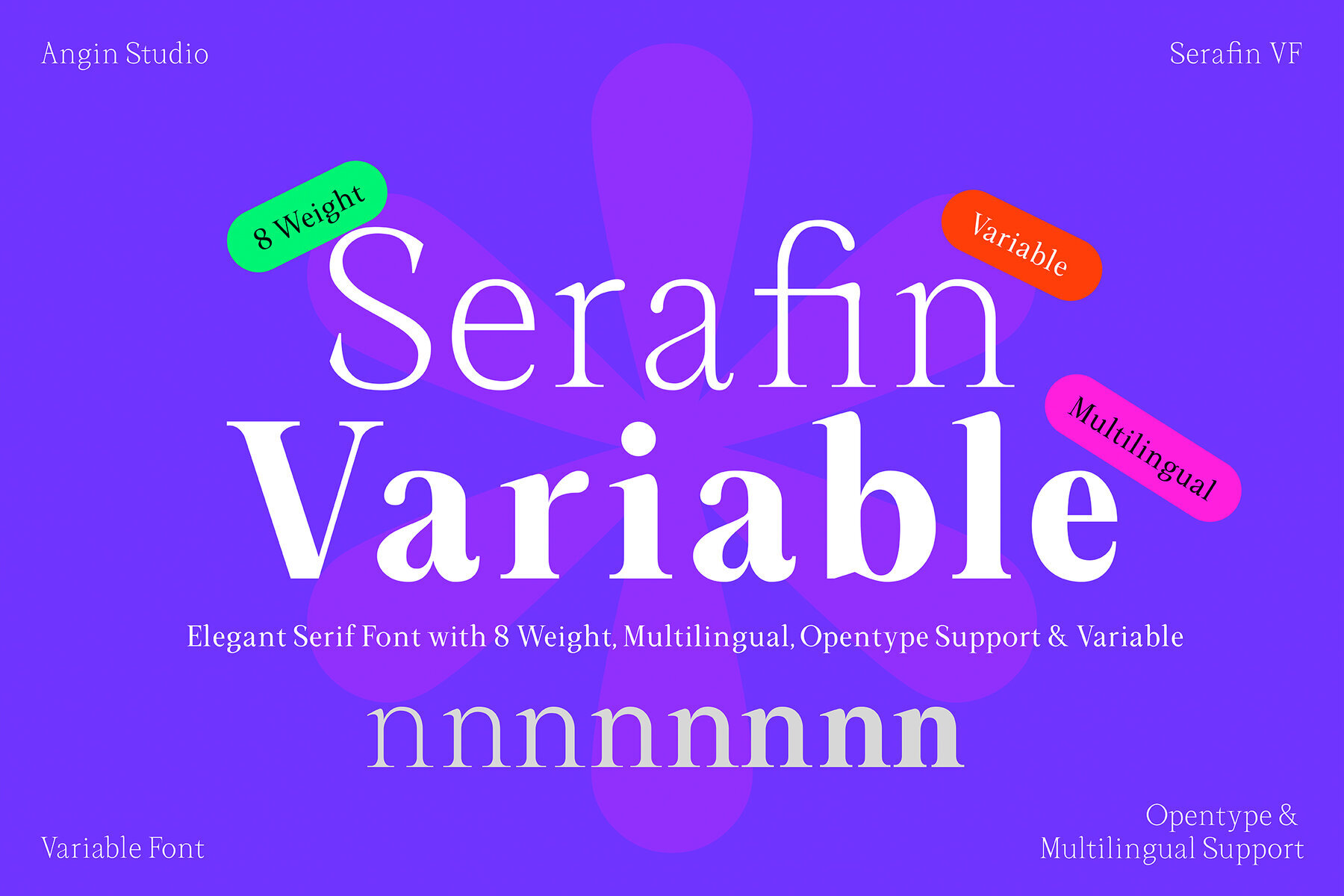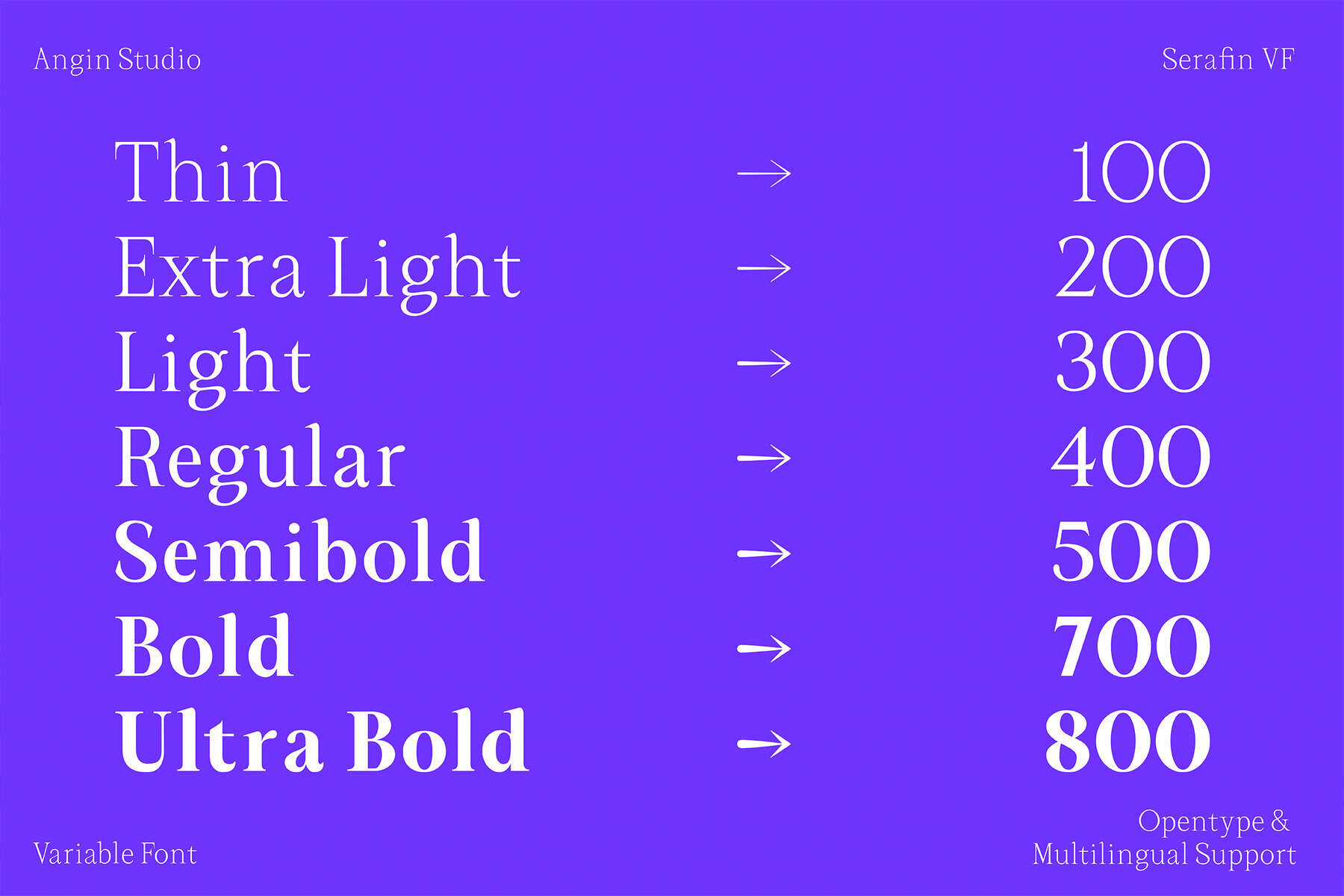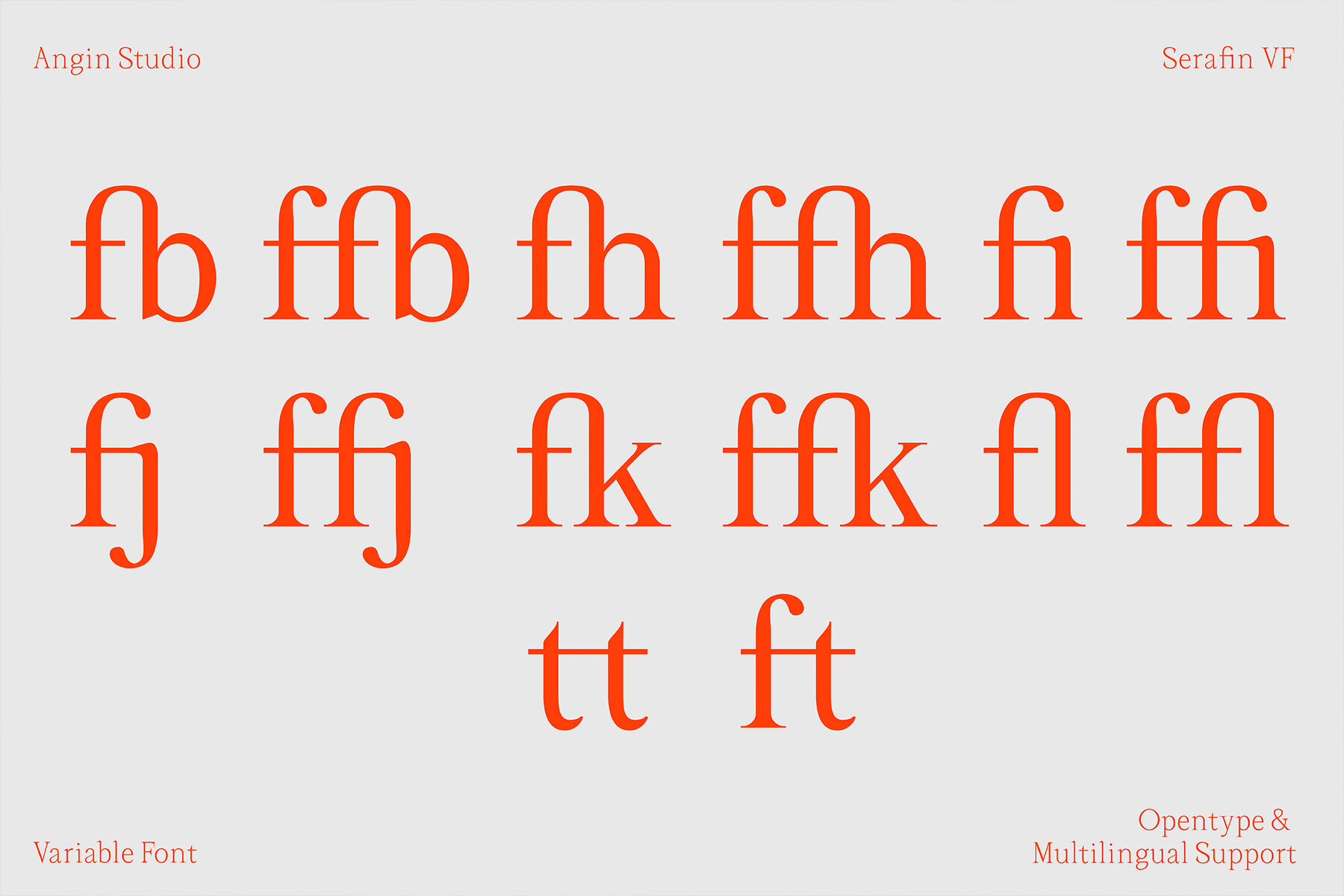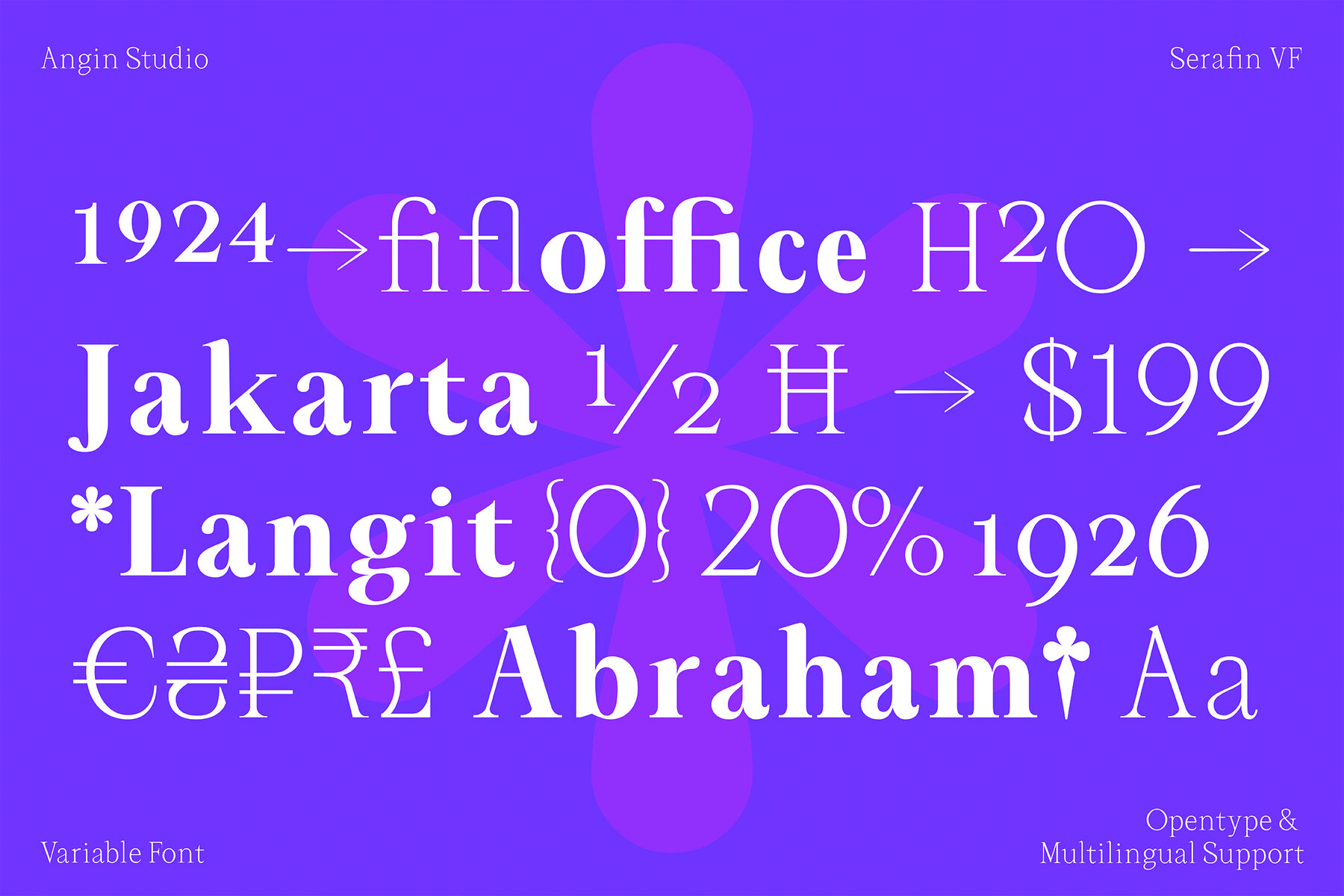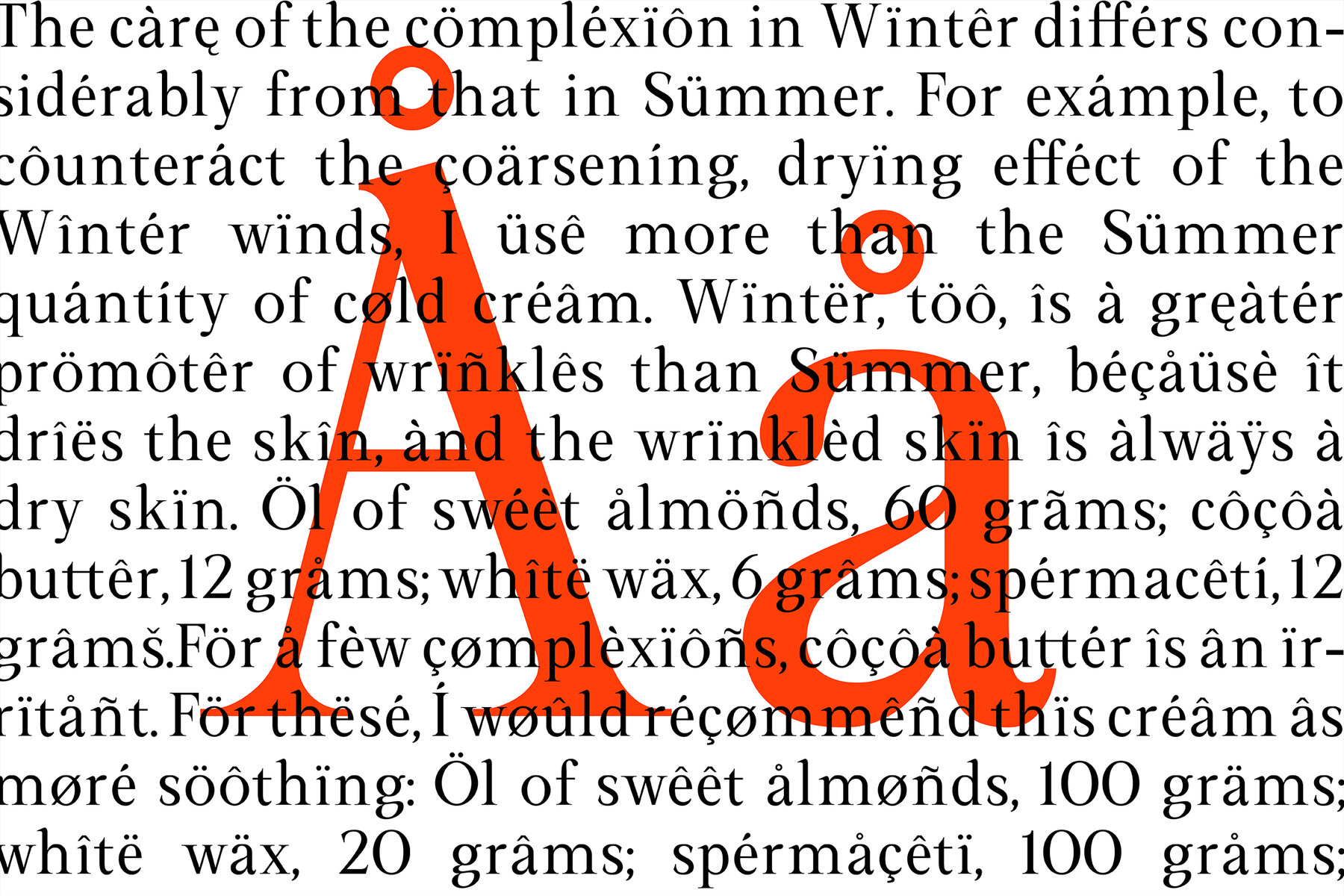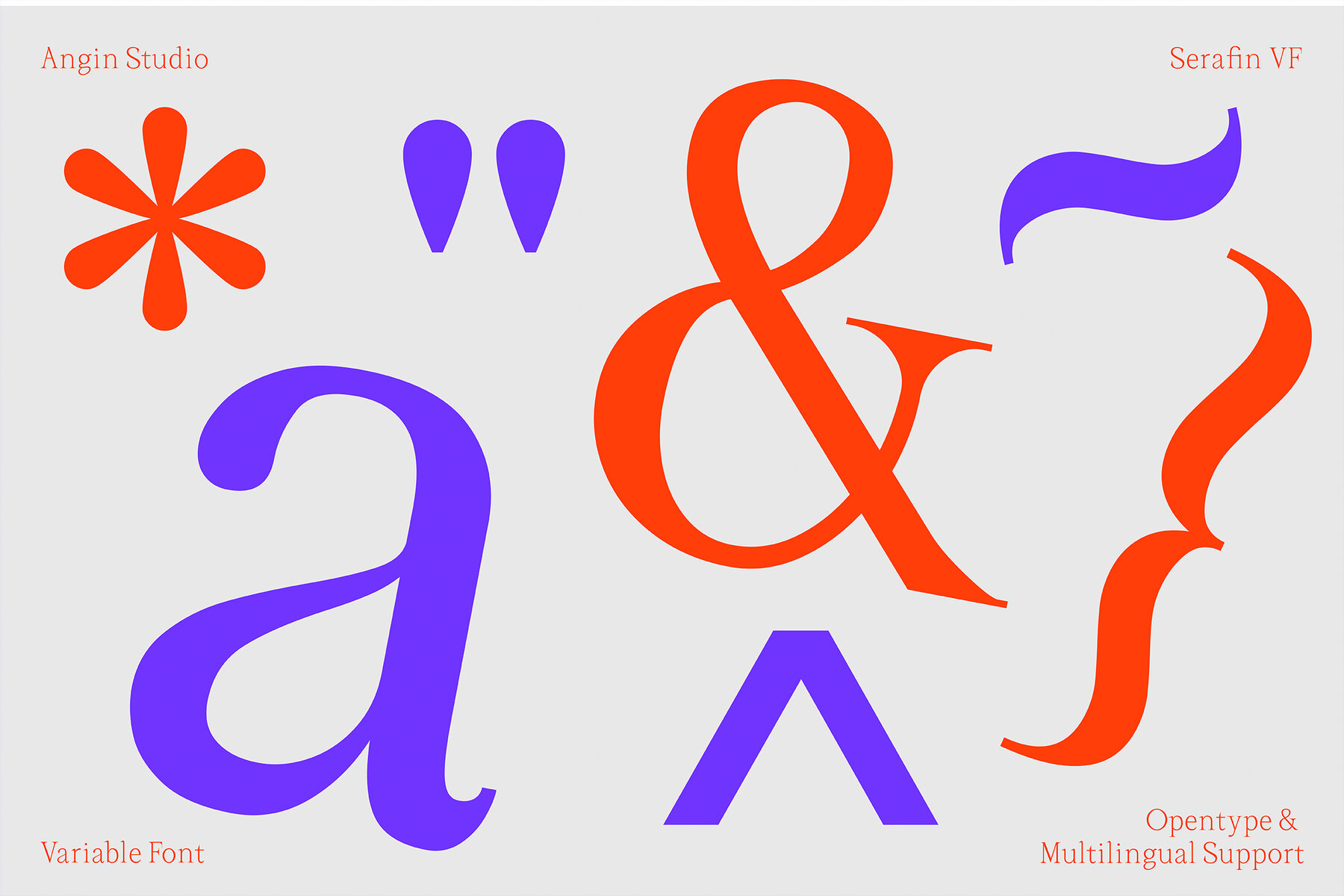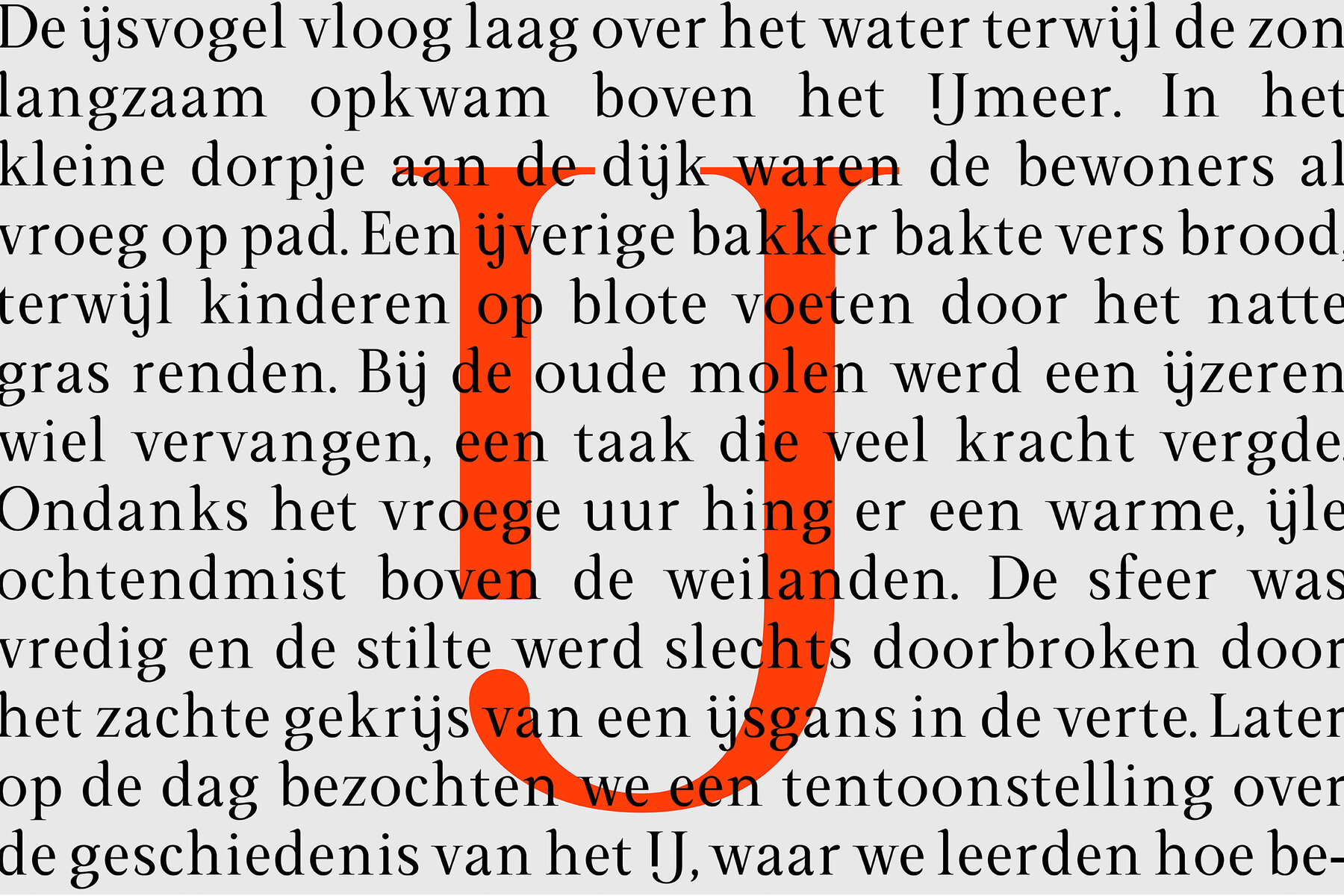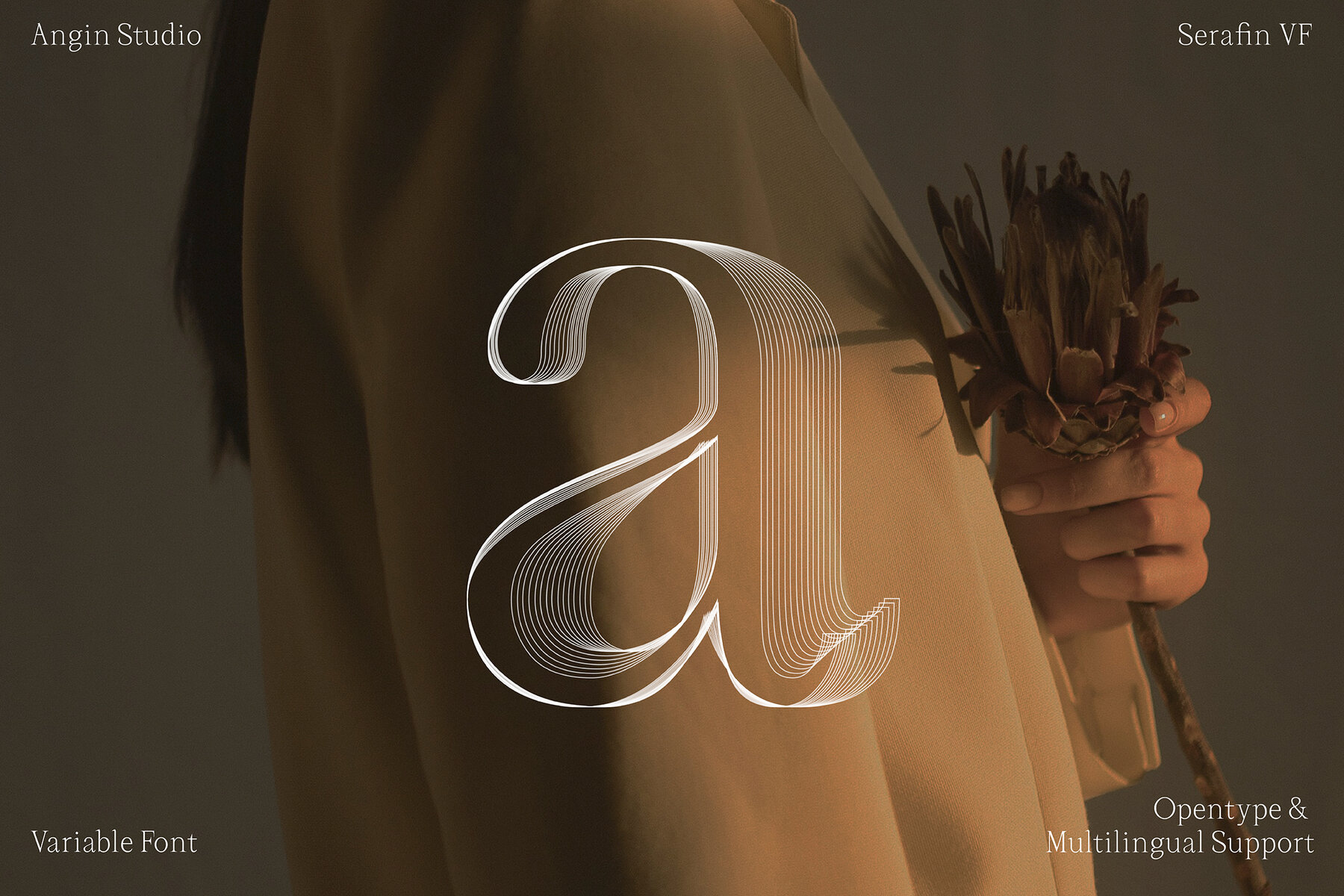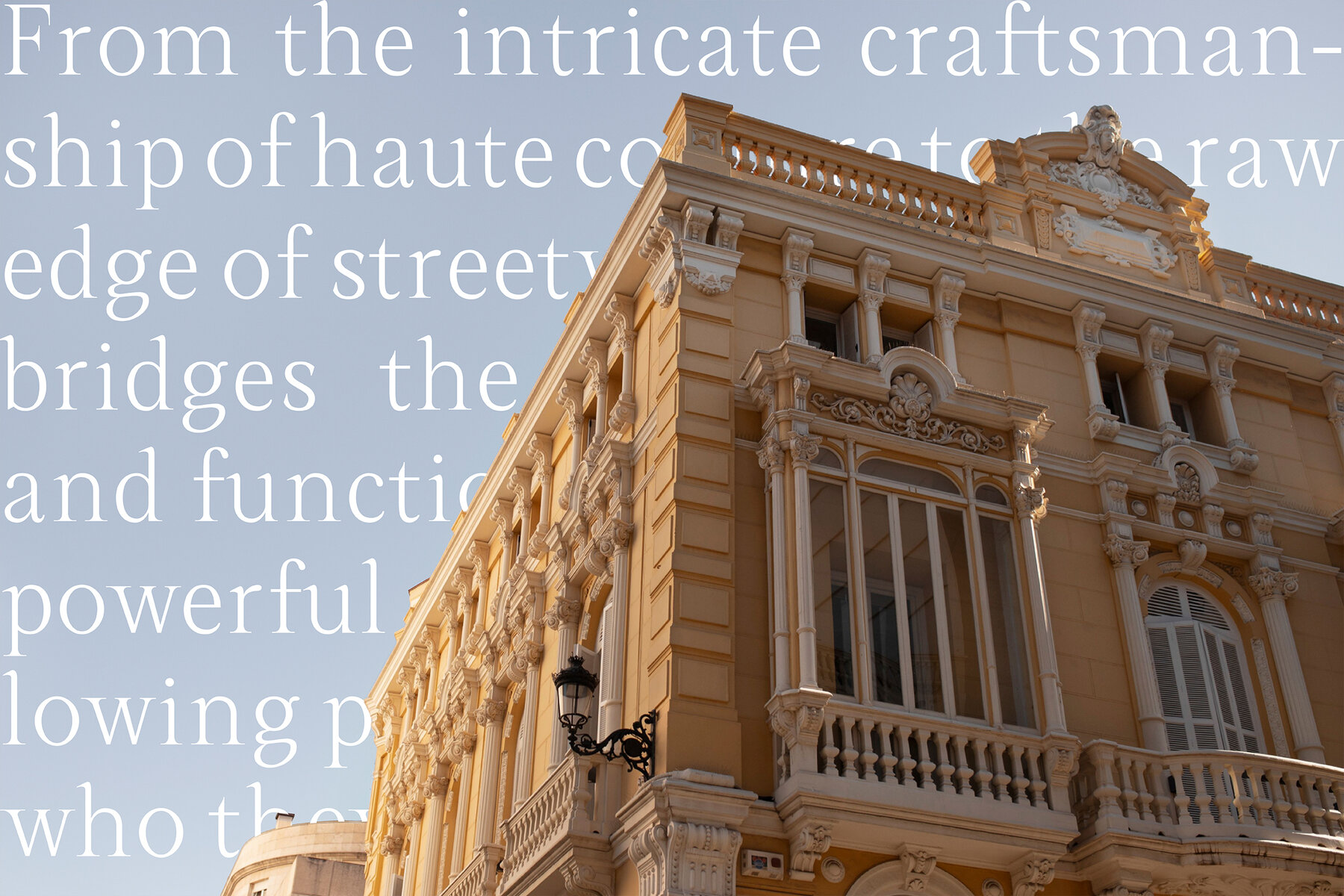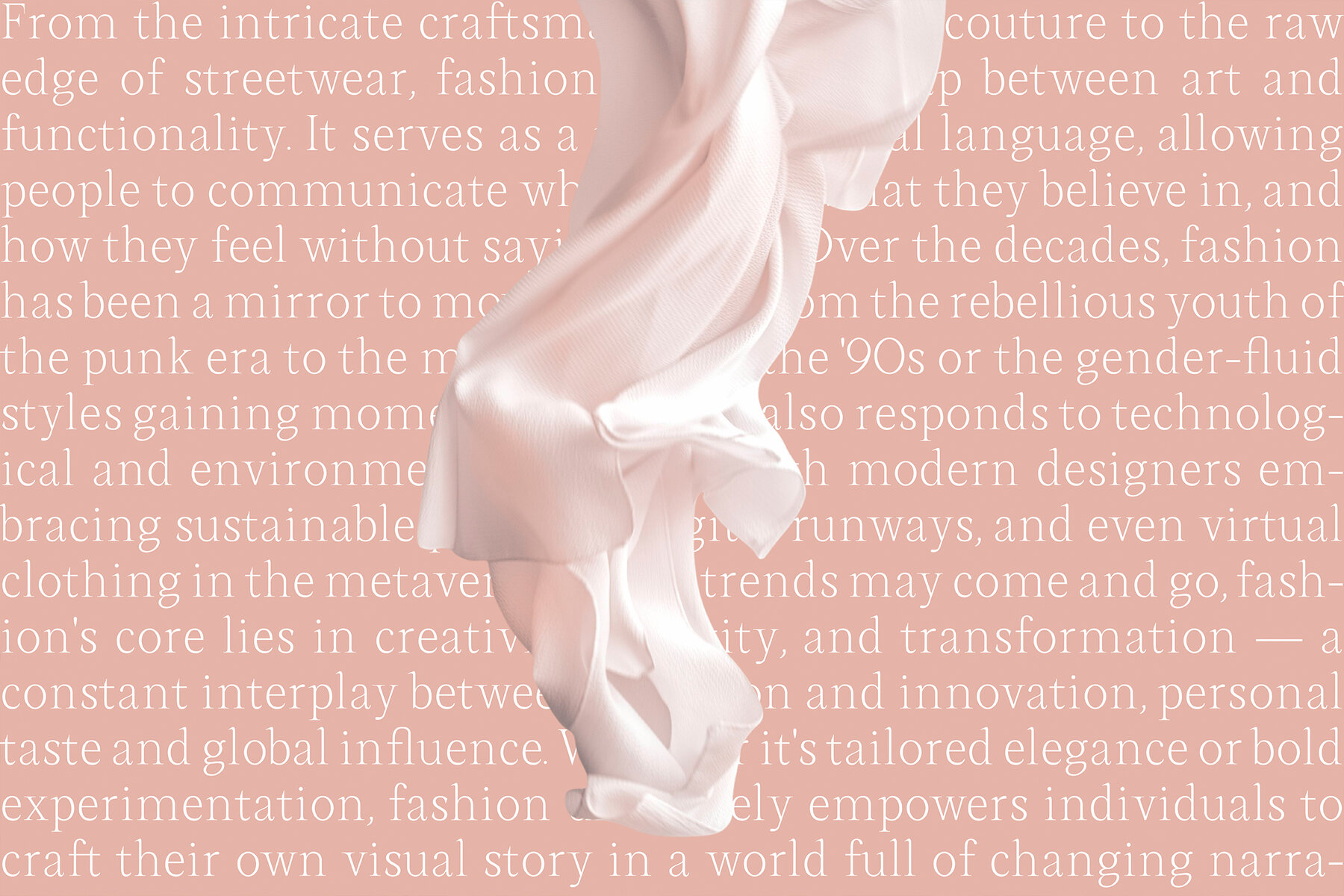
Serafin Font
Serafin Variable
Serafin is an exquisite serif font, offering multiple weights and a luxurious design that marries classic charm with modern sophistication. Its meticulously crafted letterforms provide timeless beauty, making it a perfect choice for editorial layouts, fashion brands, and high-end digital platforms. Designed with flexibility in mind, Serafin supports variable font technology, allowing smooth control over weight and expression. Each letterform embodies confidence, featuring sharp serifs and graceful curves for a polished yet bold appearance. Ideal for headlines, logos, and packaging, this typeface delivers a strong visual impact with its distinctive poise. Features:Serafin: The Elegant Serif Font